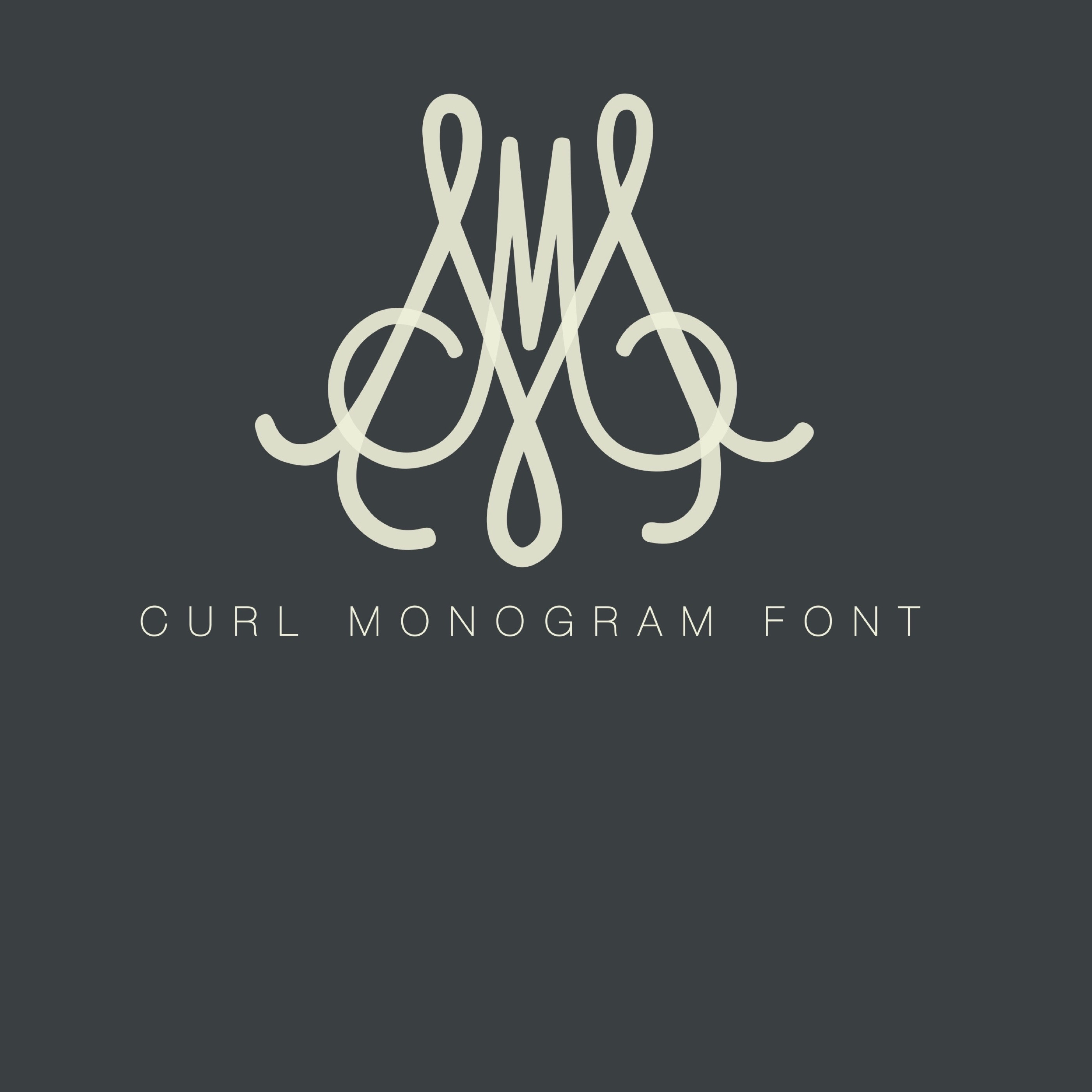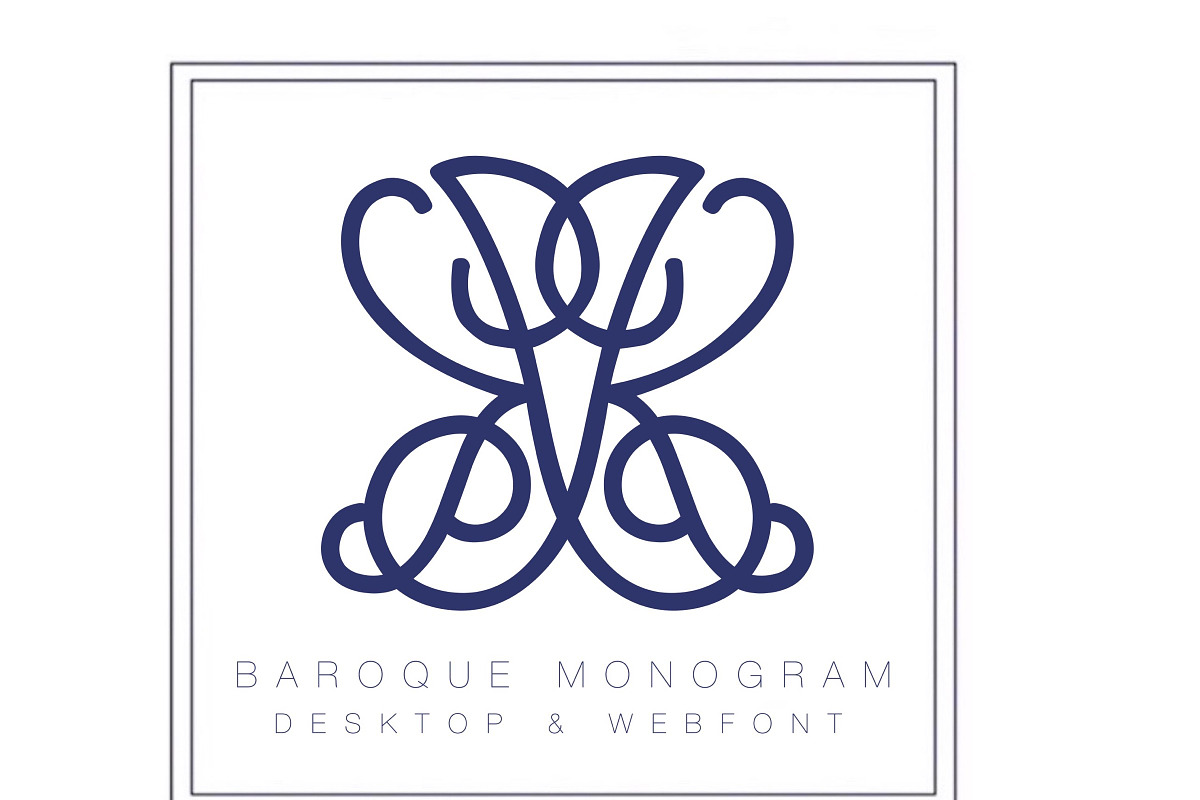
The Baroque Oopsie Daisy Monogram Typeface font includes Desktop OTF, TTF, and EOT and WOFF web fonts. There are 78 letters included in this download. overlapping monogram letters, 26 left and 26 right which can be combined in different arrangements to create new monograms.